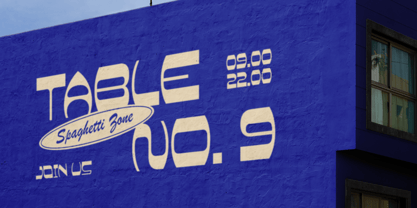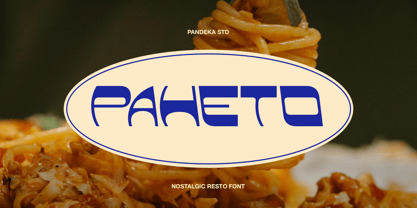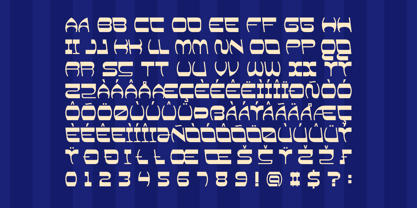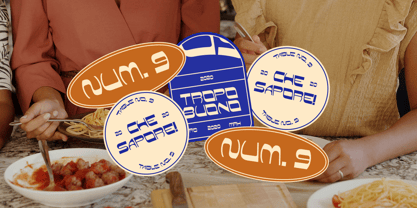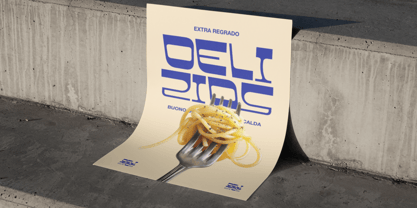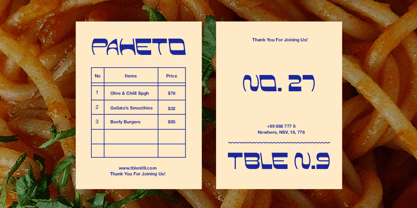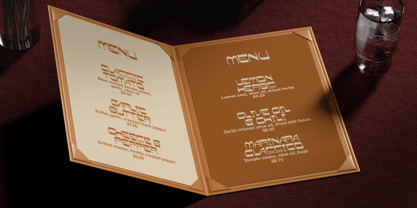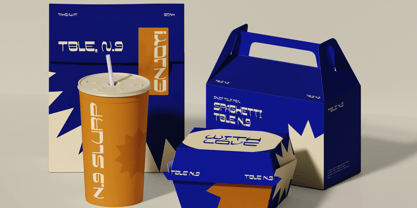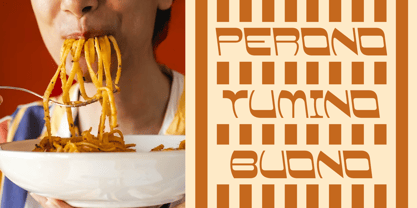
Paheto
by Pandeka Studio
The Paheto Font Family was designed by Sagara Nararya and published by Pandeka Studio. Paheto contains 1 styles. More about this family
Paheto is a nostalgic restaurant display font inspired by classic Italian eateries, vintage menus, and retro food packaging. With its bold geometric shapes, rounded corners, and slightly futuristic–retro touch, Paheto delivers a strong yet friendly character that feels both old-school and modern. The single Regular style is crafted to stay clean, readable, and impactful across various food branding applications.
Paheto works perfectly for restaurant logos, menu designs, pasta bars, café signage, food packaging, takeaway boxes, posters, editorial layouts, and lifestyle branding. Its nostalgic vibe combined with a contemporary structure makes it ideal for designers looking to create memorable culinary visuals with a timeless restaurant aesthetic.
• 1 Style: Regular
• Full Character Set: Uppercase, lowercase, numbers, symbols, and punctuation
Designers: Sagara Nararya
Foundry: Pandeka Studio